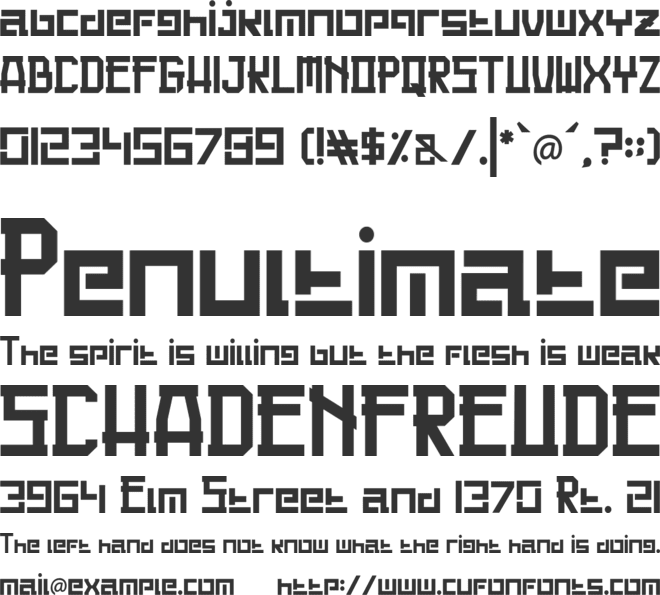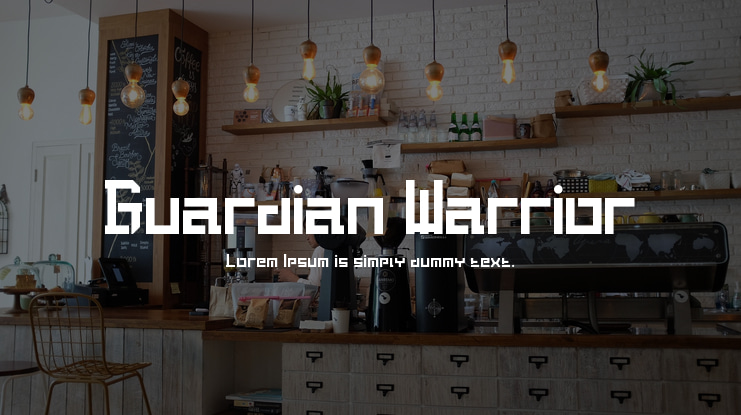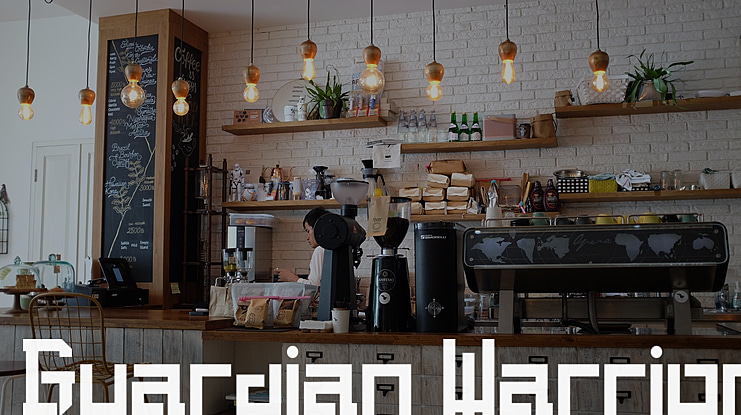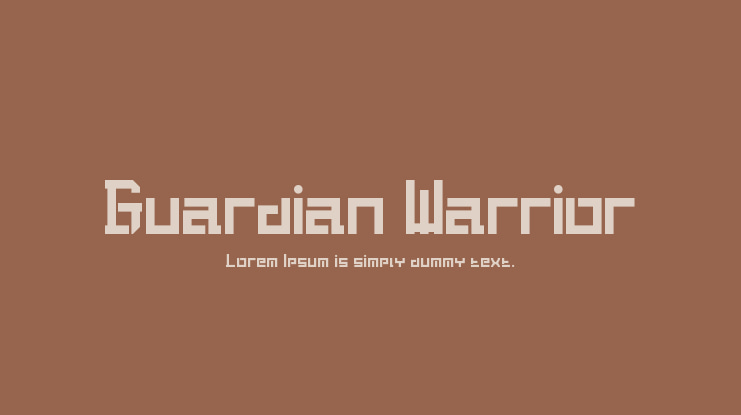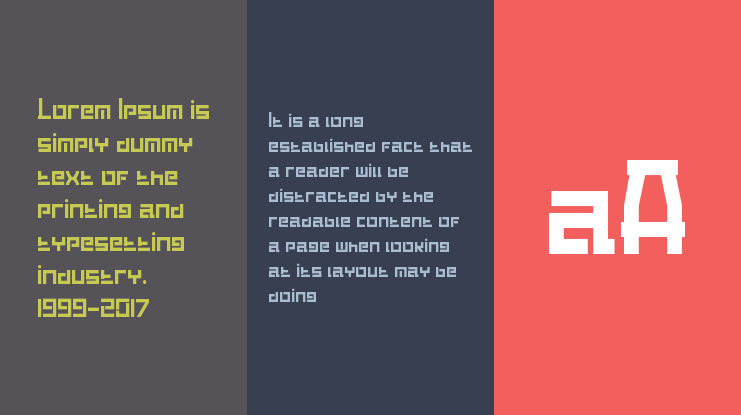
Guardian Warrior Font Family
Introducing our new release, Guardian Warrior Modern Display Font. This typeset is perfect for brand logo, invitations, greeting card, or even any kind of project. With multilingual feature and style variations, this typeface would further enhance the aestethical aspect of your work.